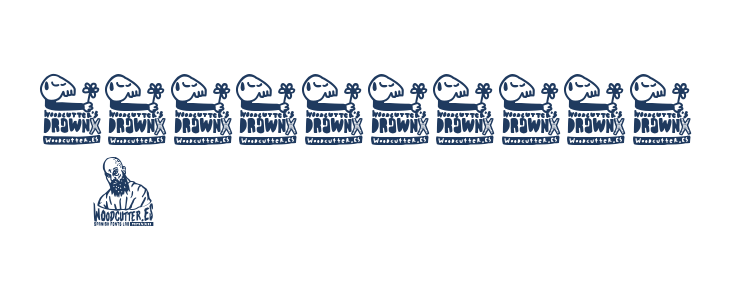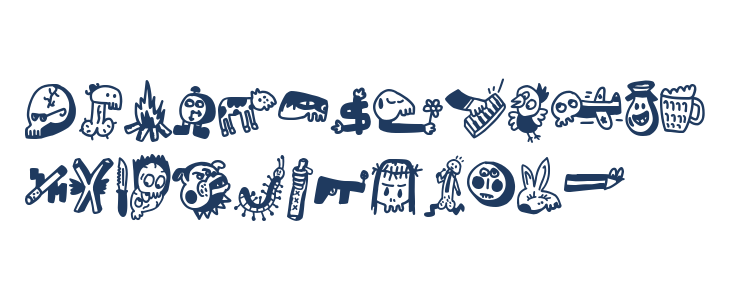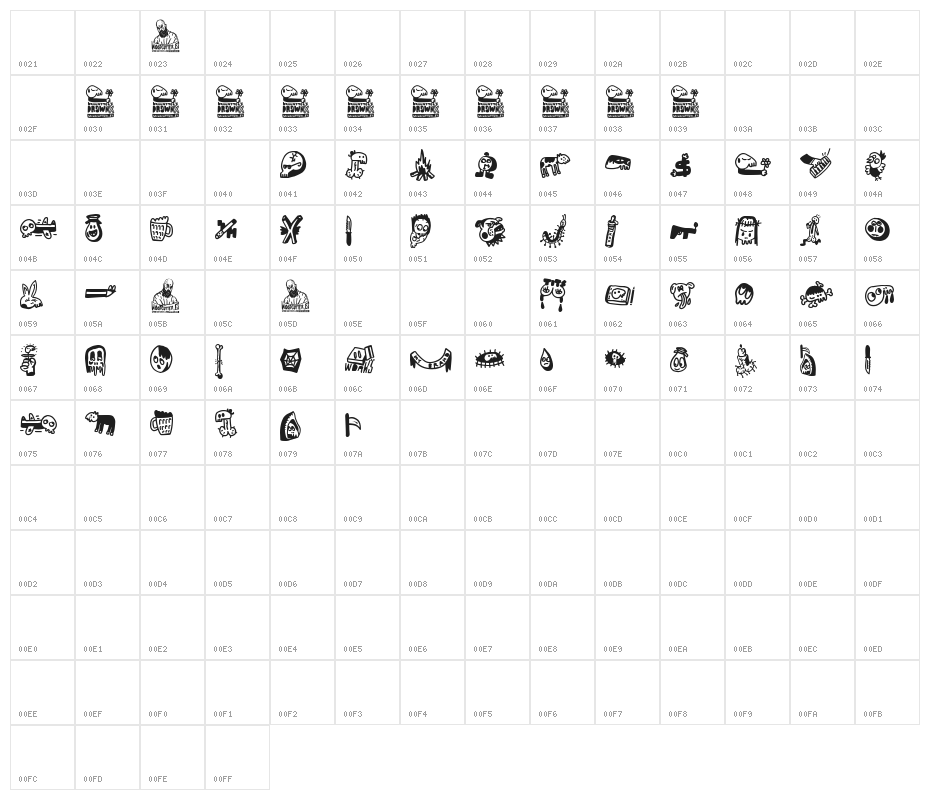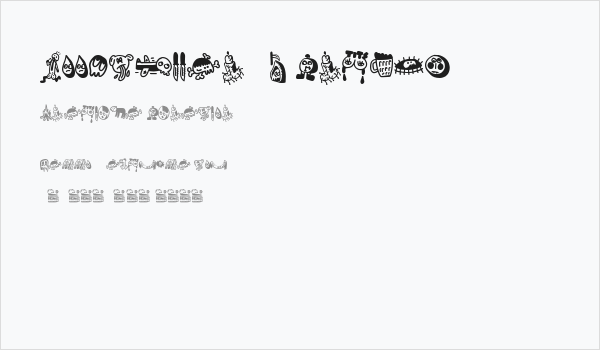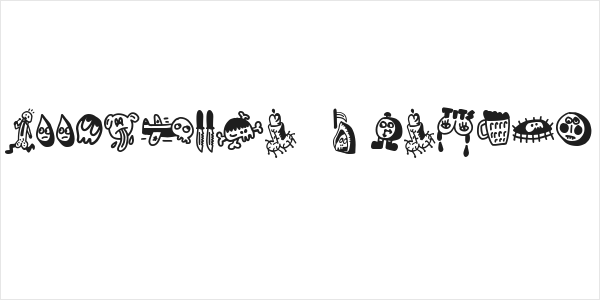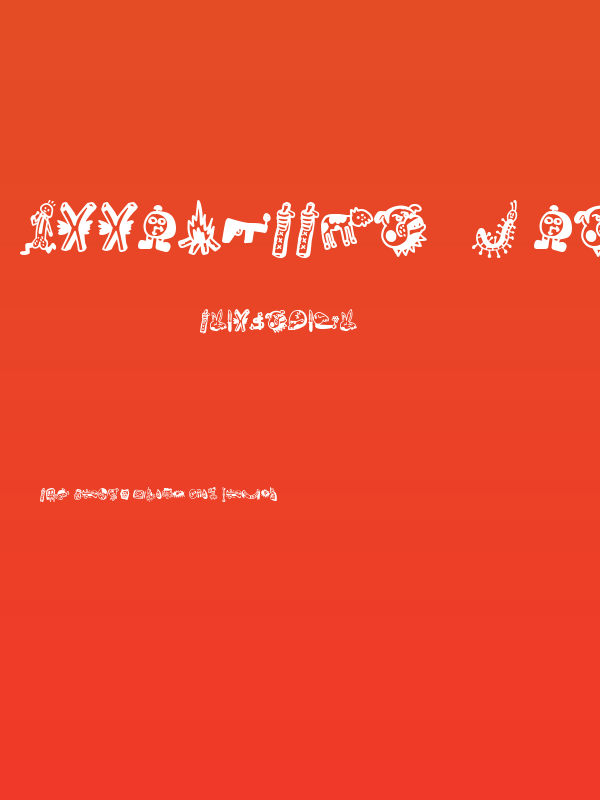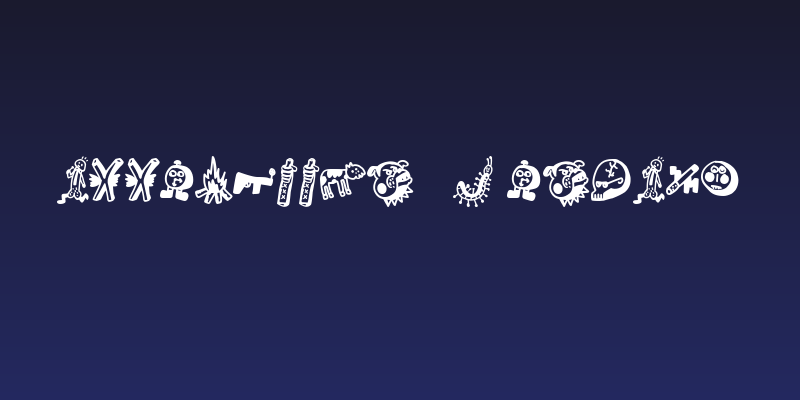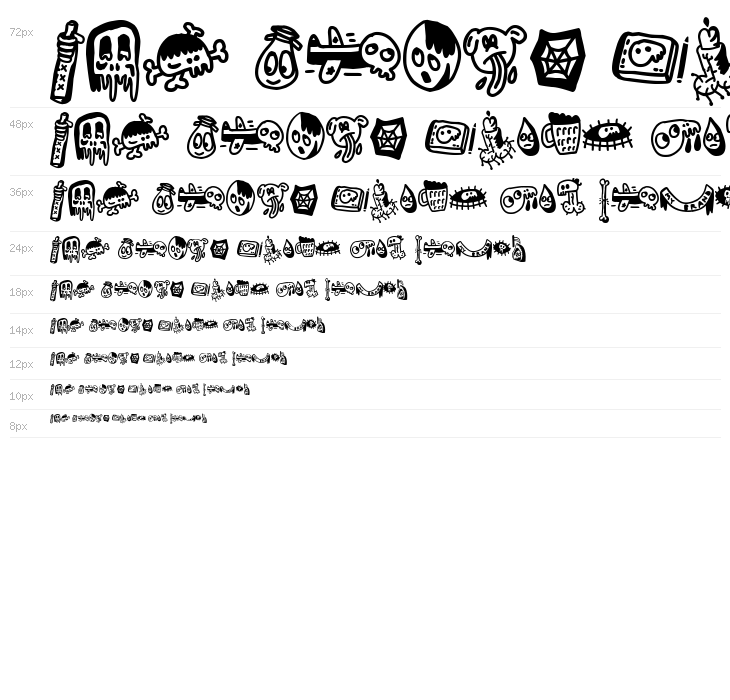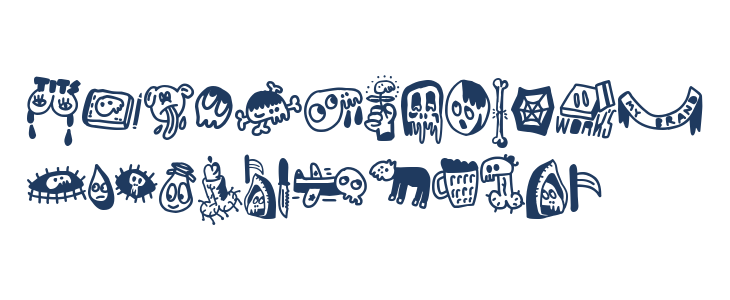
Woodcutter's DrawnX Font
Woodcutter's DrawnX Description
A highly decorative, hand-drawn dingbat font featuring quirky, cartoonish illustrations with a horror and macabre theme, including skulls, bones, animals, and various objects rendered in bold, uneven black strokes.
Overall StyleDecorative, Playful, Horror, Hand-drawn
Use CasePosters, Invitations, Logos, Themed Graphics
Proposed ProjectsHalloween party invitations, horror-themed posters, comic books, childrenÒ€ℒs spooky crafts, alternative band artwork.